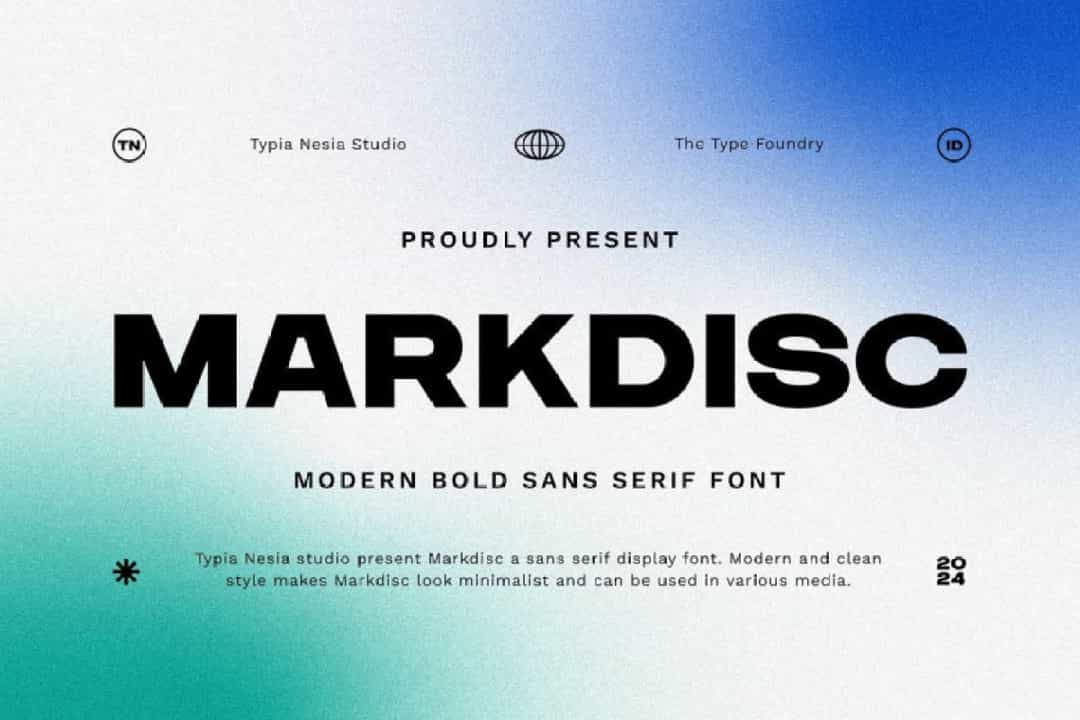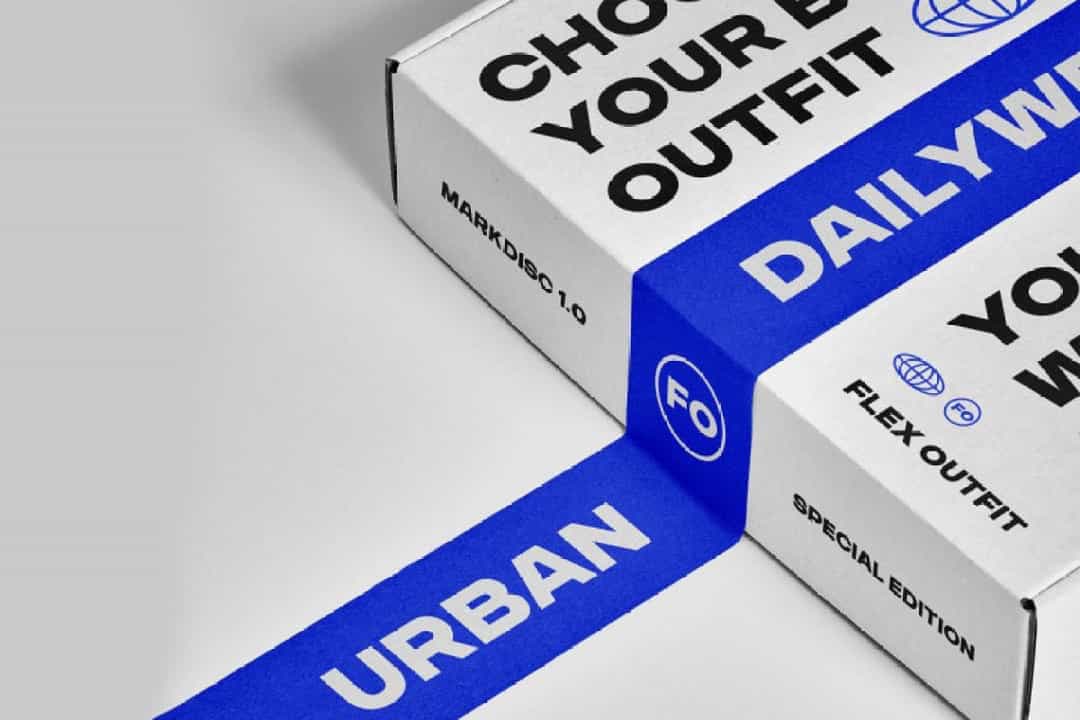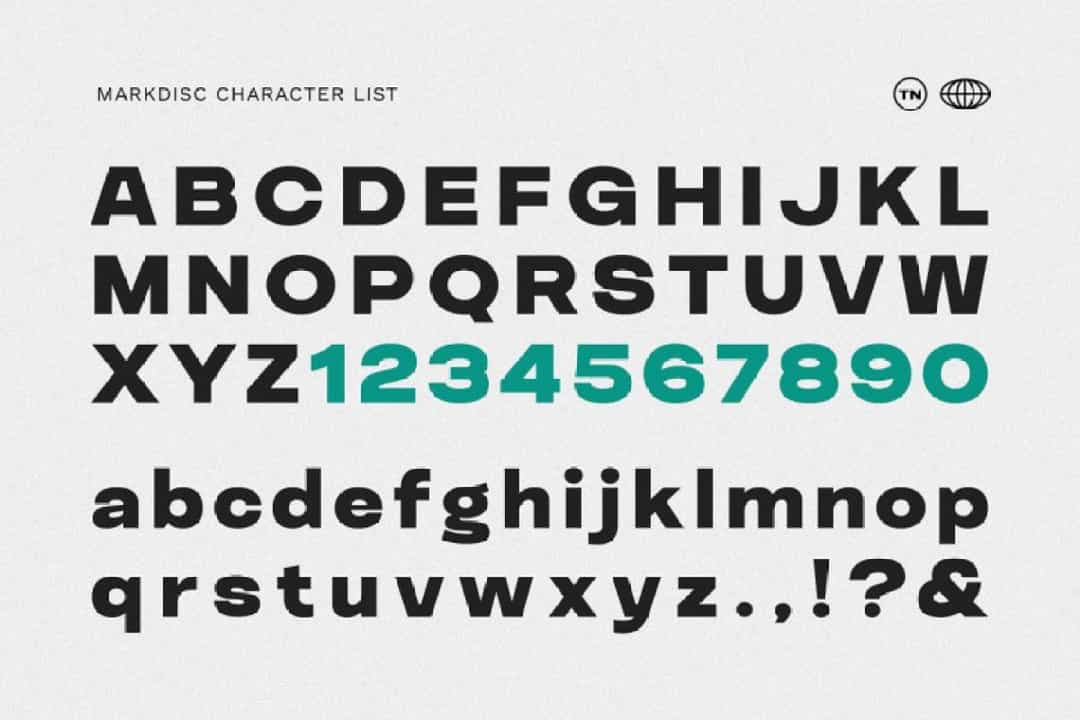
Markdisc is a Modern Bold Sans Serif font that stands out in design with its bold and confident appearance. Its crisp lines and striking strokes convey professionalism and modernity beautifully. This versatile font can be utilized in various design projects such as logo and brand design, product packaging design, web design, print/digital advertisement campaigns, social media graphics and social media graphics.